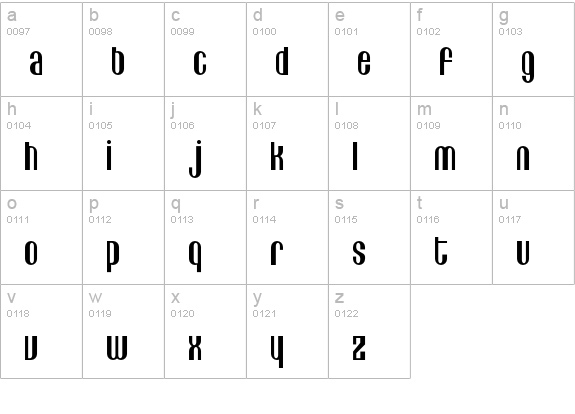
Lithia-OffKilter Font Details
Lithia-OffKilter font is a unique and eclectic typeface that exudes a sense of creativity and individuality. Its irregular and off-kilter letterforms give it a playful and artistic look, making it perfect for projects that require a touch of whimsy and originality. This font is freely available to download at FontsMarket.com, allowing designers and creatives to easily access and use it in their projects without any cost. With its quirky charm and free-spirited vibe, Lithia-OffKilter font is sure to make a bold statement and add a dose of personality to any design.